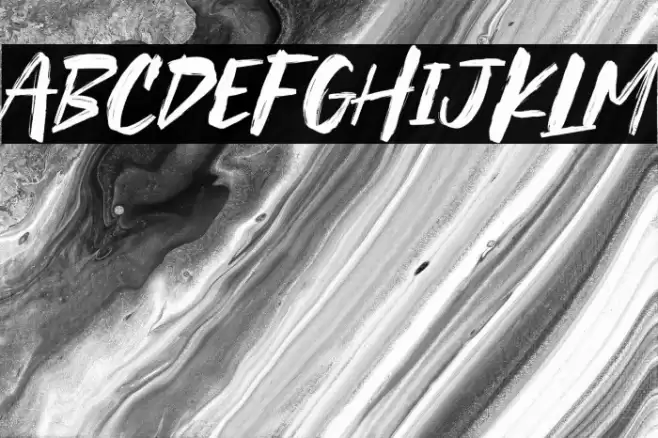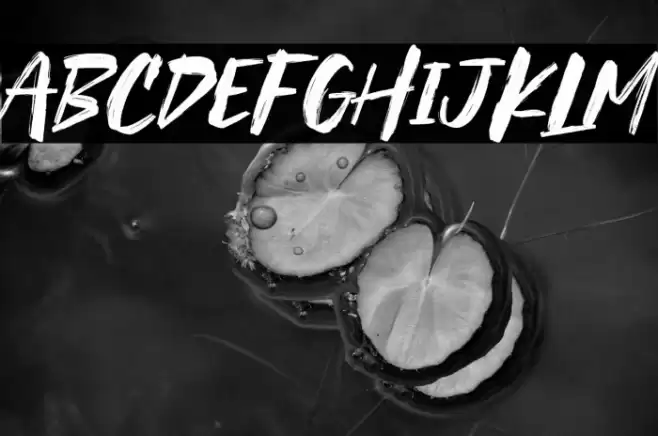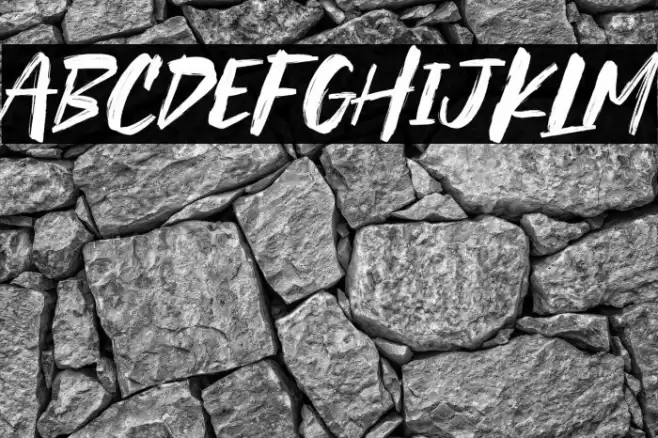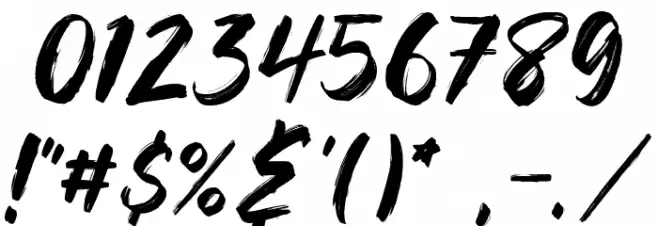
Glory Mathilda Font
Glory Mathilda Description
This font exudes a bold and dynamic energy, characterized by its brush-like strokes and expressive style. The letters are crafted with a sense of movement and fluidity, giving them a hand-painted appearance. Each character varies slightly in width and angle, adding to the organic and spontaneous feel. The uppercase and lowercase letters maintain a consistent style, with the uppercase being slightly more pronounced. Numbers and special characters are equally expressive, maintaining the overall aesthetic. This font is perfect for projects that require a personal, artistic touch.
A bold, brush-style font with dynamic, hand-painted strokes from Uncategorized fonts.
- Font: Glory Mathilda
- Proposed Projects: Ideal for branding, posters, artistic projects, and any design needing a bold, expressive touch.
Glory Mathilda UPPERCASE
Glory Mathilda LOWERCASE
Glory Mathilda OTHER CHARS